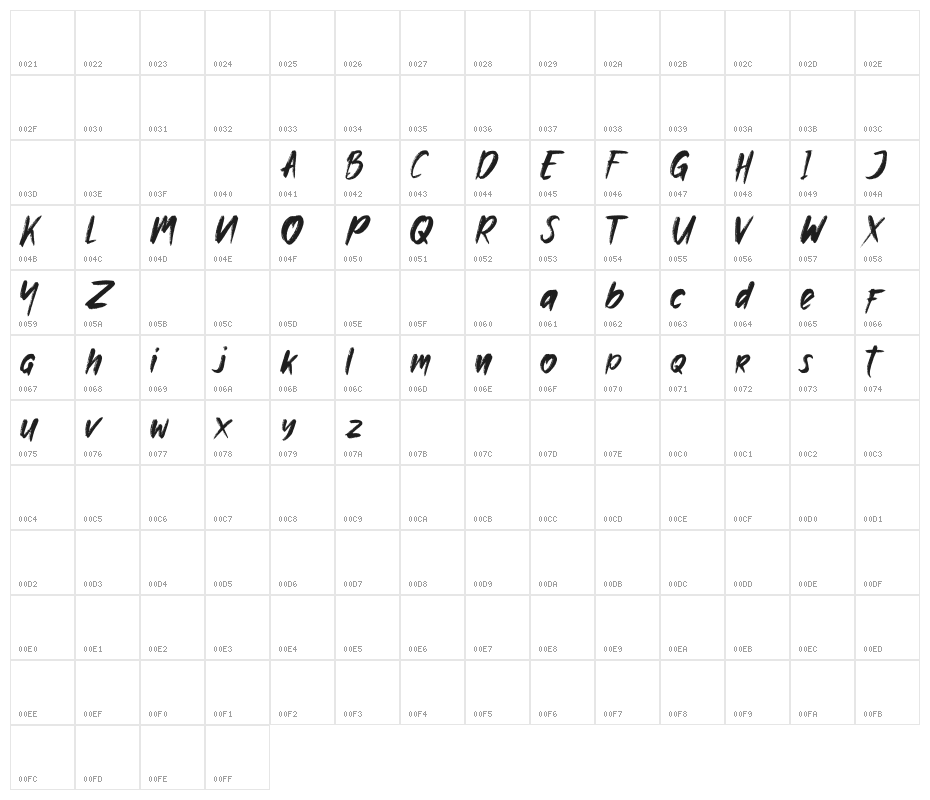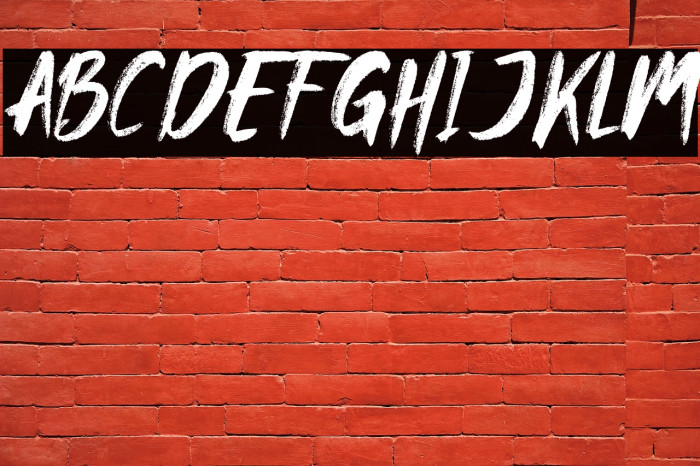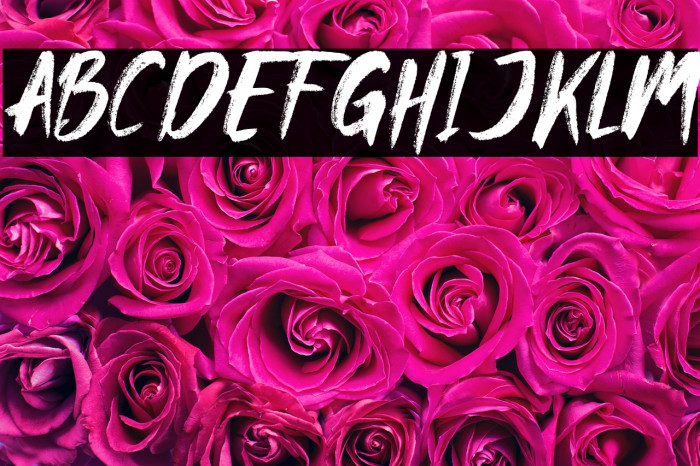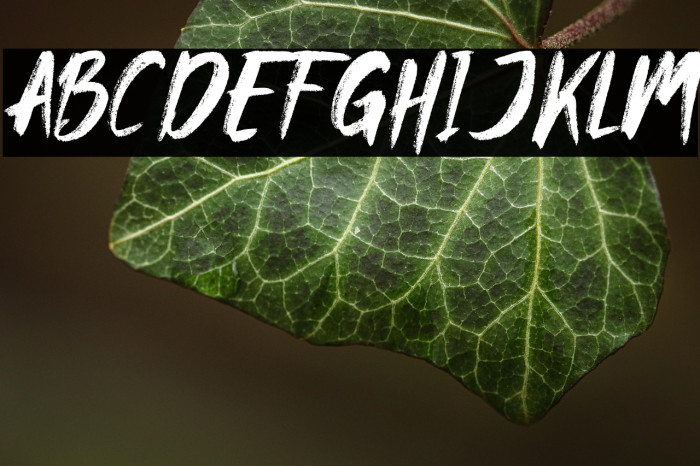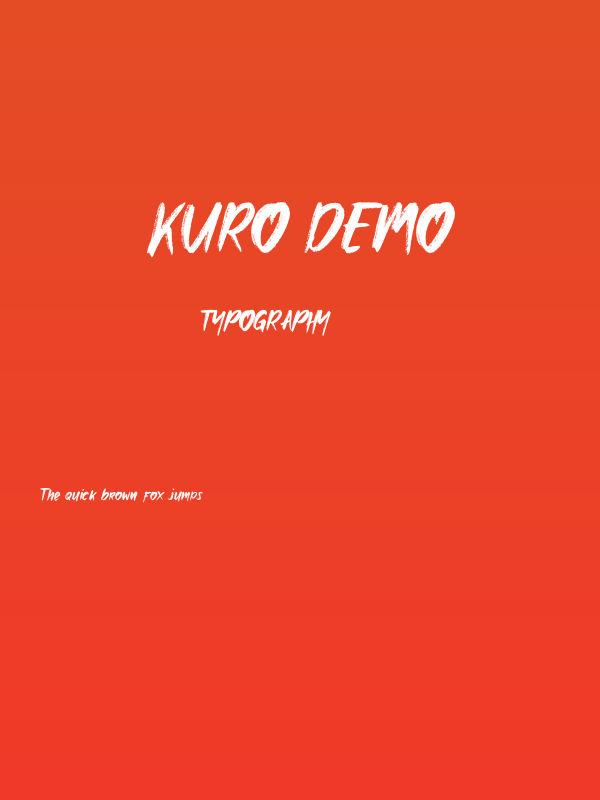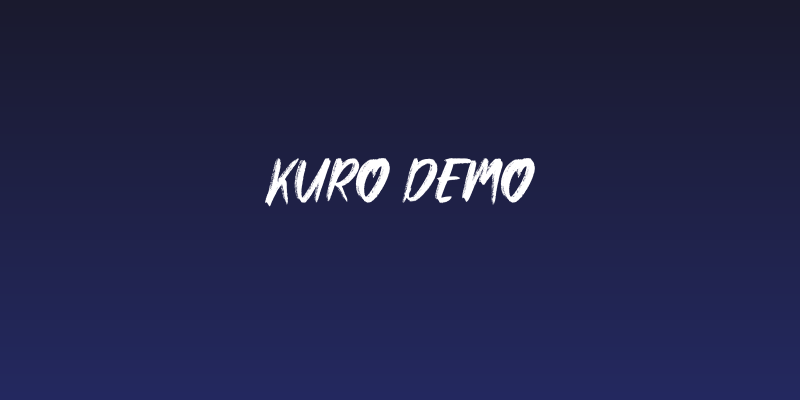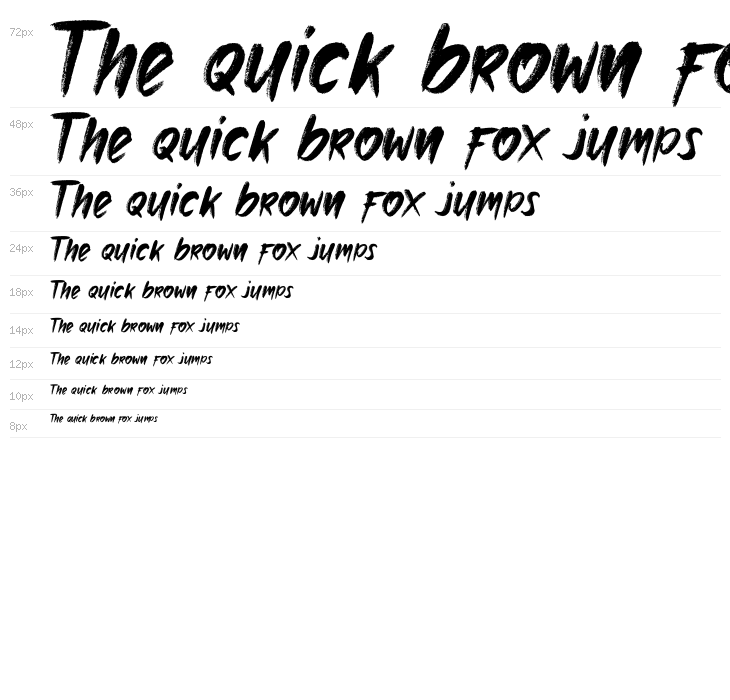
Kuro demo Font
Kuro demo Description
This font features a bold, expressive brush style that conveys a sense of energy and dynamism. The strokes are thick and textured, giving it a hand-painted appearance. Each character is crafted with a sense of motion, as if captured in mid-swipe, which adds a lively and spontaneous feel. The uppercase and lowercase letters maintain a consistent style, with slight variations that enhance its organic look. The numbers and special characters are equally bold and expressive, making them stand out. This font is ideal for projects that require a strong visual impact and a personal touch.
Proposed ProjectsIdeal for posters, branding, packaging, and any design needing a bold, artistic touch.